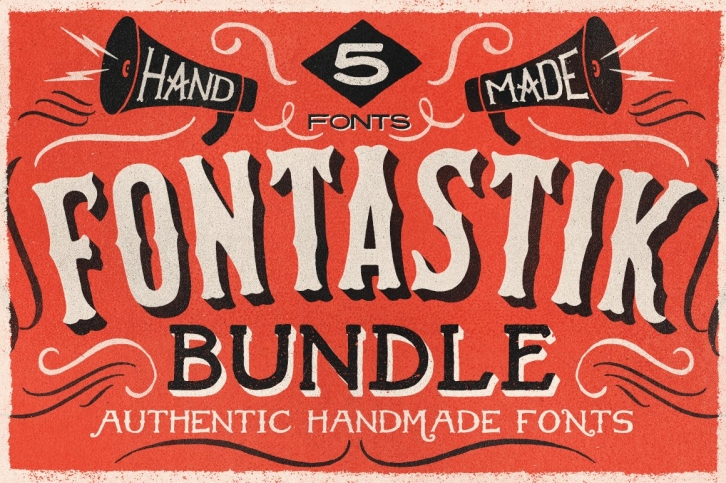
This Bundle Includes Authentic Handmade Fonts from ThunderPixels:
- American Handmade Typeface - http://crtv.mk/eVeP
- Eighty One Typeface - http://crtv.mk/iZ14
- Victory & Glory TP + Extras - http://crtv.mk/beiG
- Gilmost Mill's TP - http://crtv.mk/jo7J
- GrandGibson Typeface - http://crtv.mk/toY6